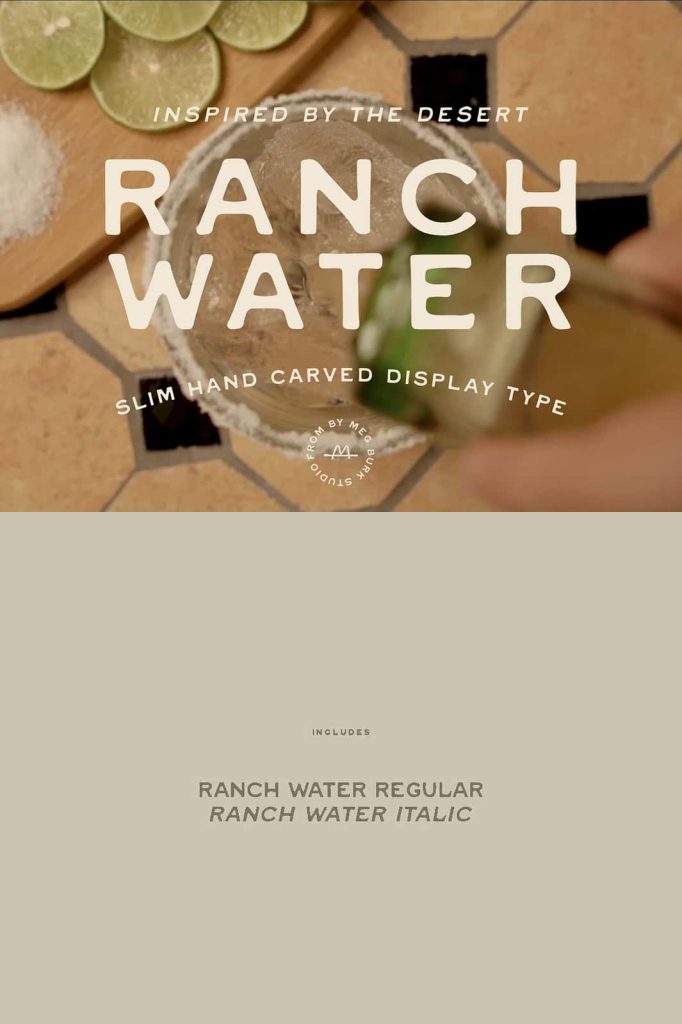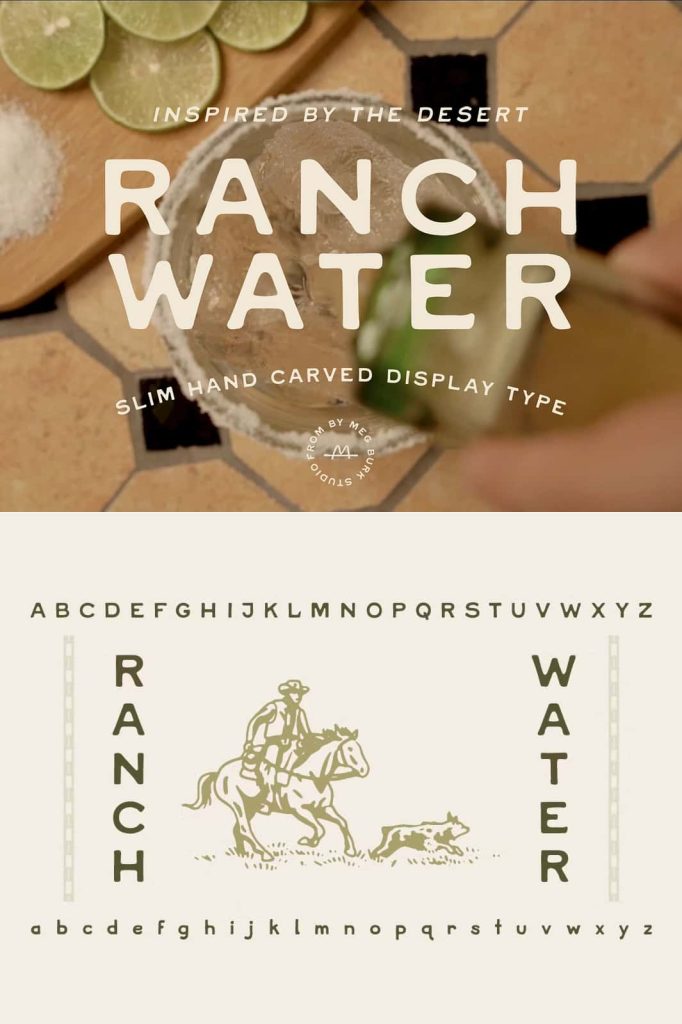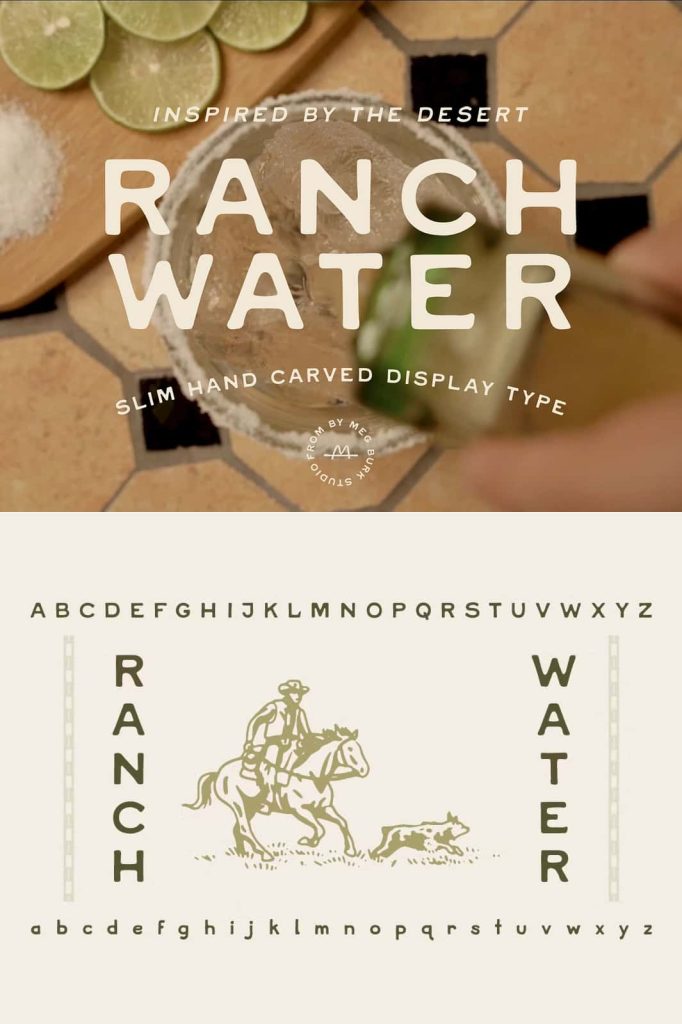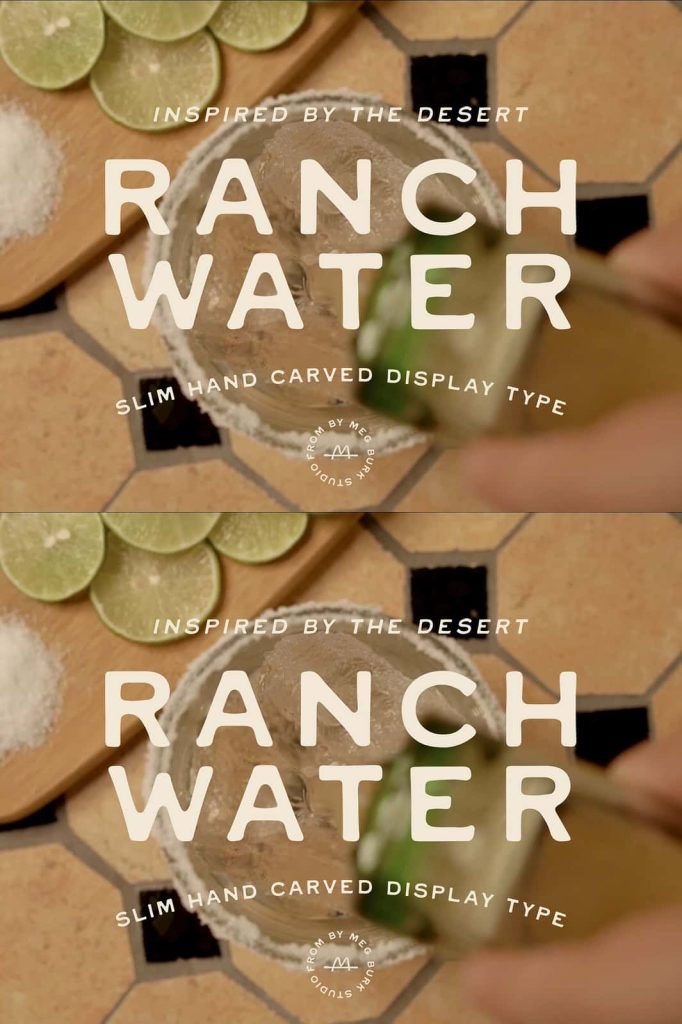
Ranch Water stems from blocky, almost-mono spaced letters. I removed the jarring perfect corners and carved (as I call it) the original letter forms into these softer, aged, chiseled ones. Each stroke and vector point are chosen carefully to be crisp, but undone in all the right ways.